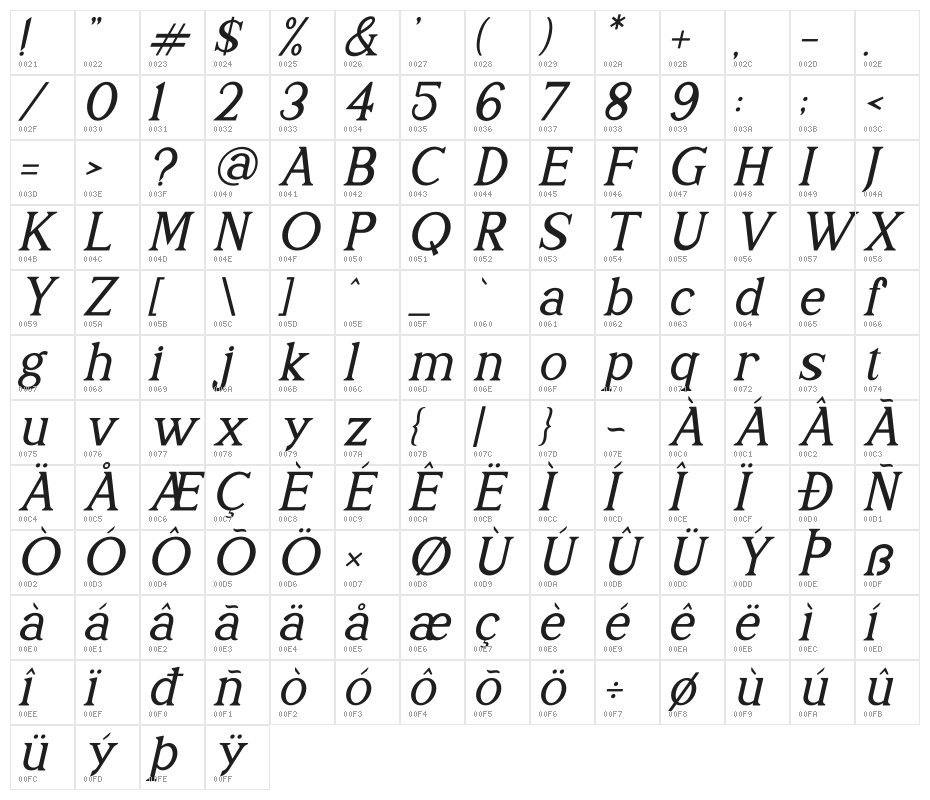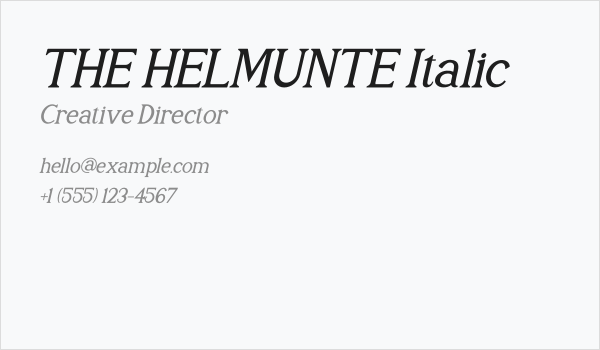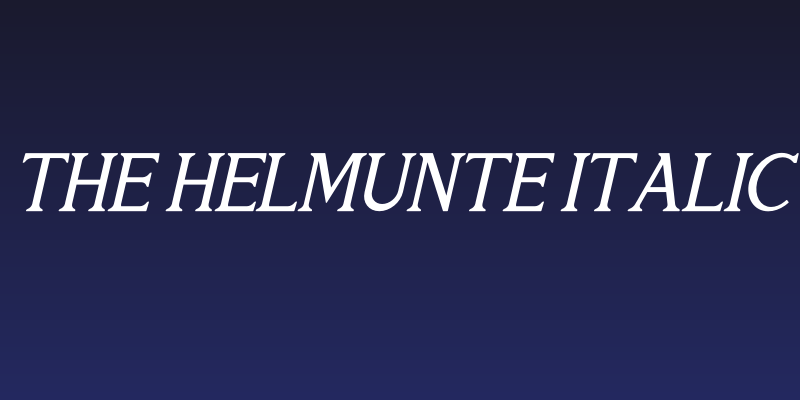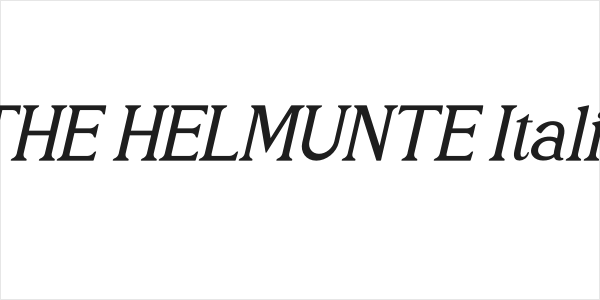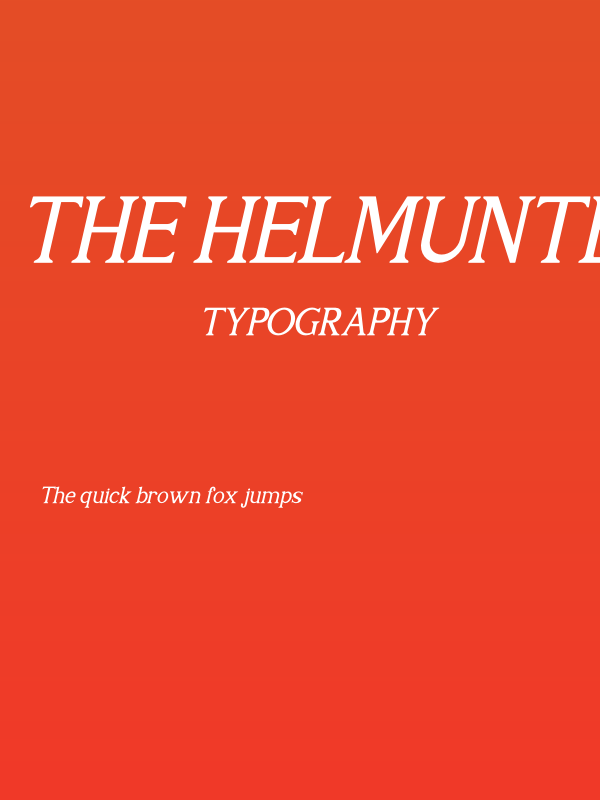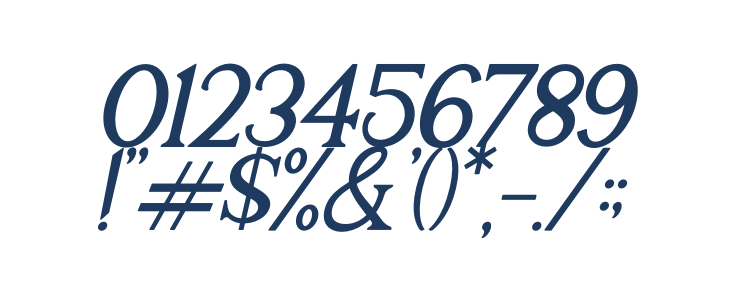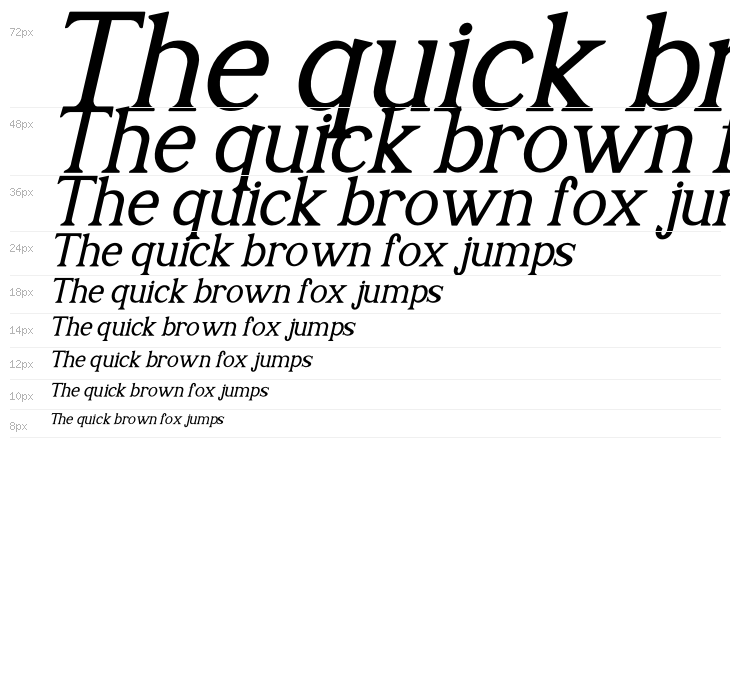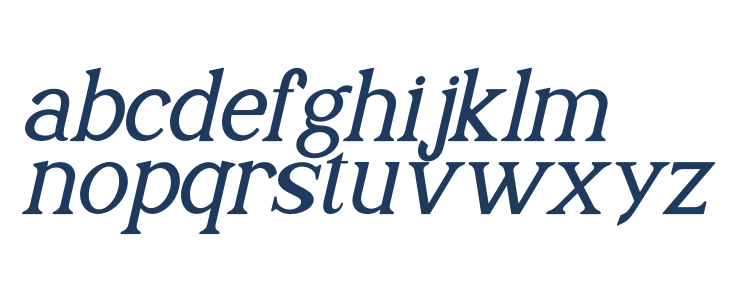
THE HELMUNTE Italic Font
THE HELMUNTE Italic Description
This font features a classic serif style with elegant italicization, giving it a sophisticated and timeless appearance. The letterforms are well-proportioned, with a slight slant that adds a dynamic flow to the text. The serifs are pronounced yet refined, contributing to the font's readability and aesthetic appeal. The numerals are consistent with the overall style, maintaining the italicized form and ensuring a cohesive look. Special characters are designed with the same attention to detail, making this font versatile for various applications.